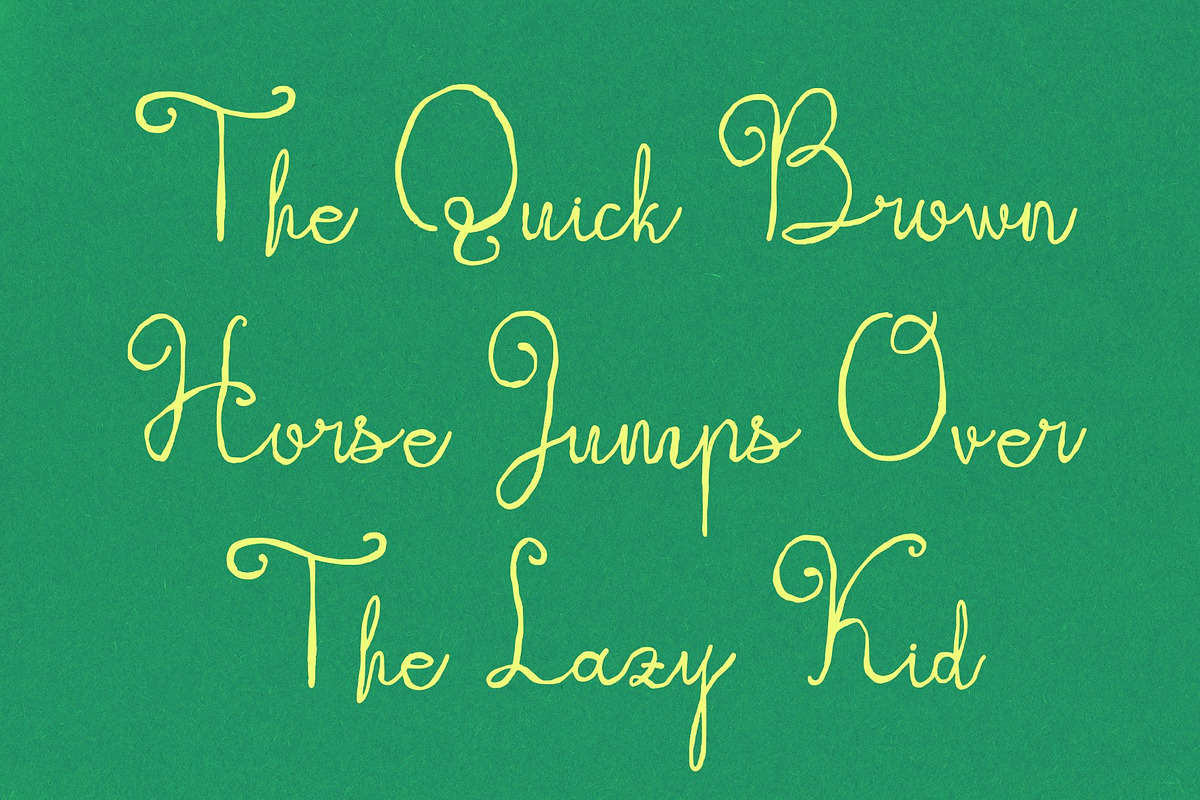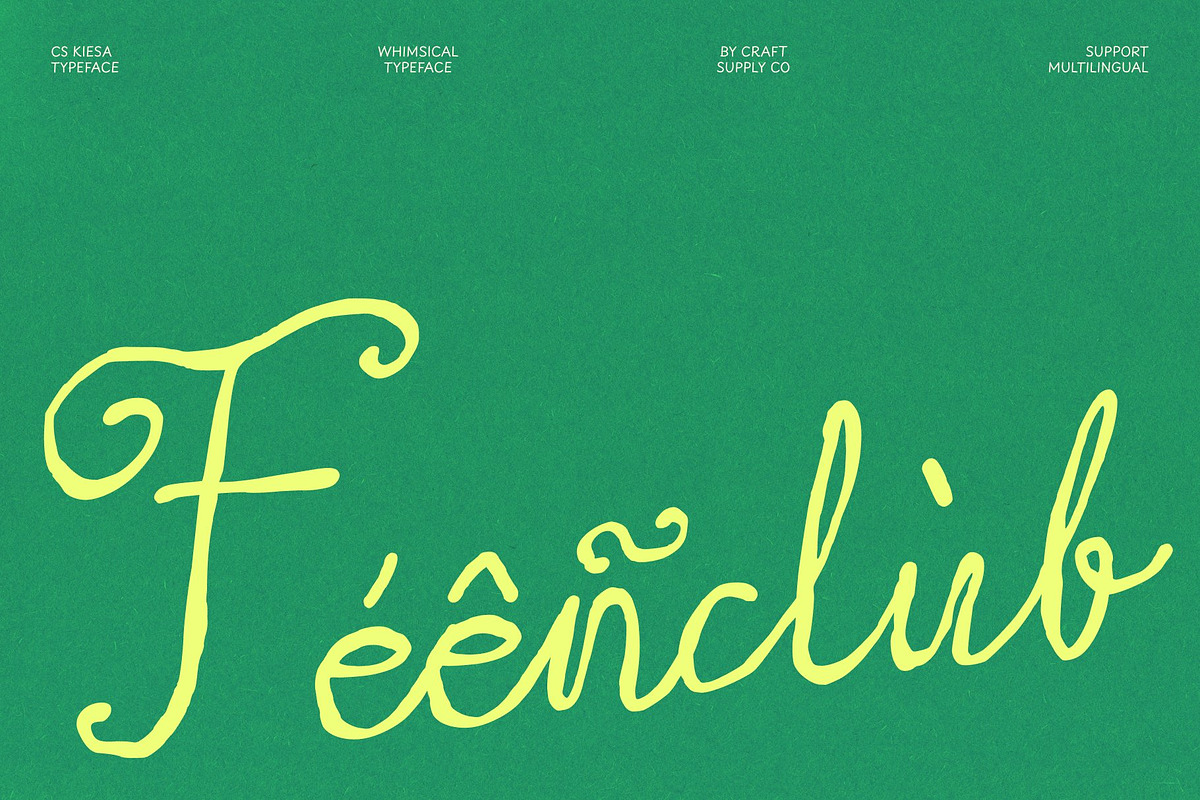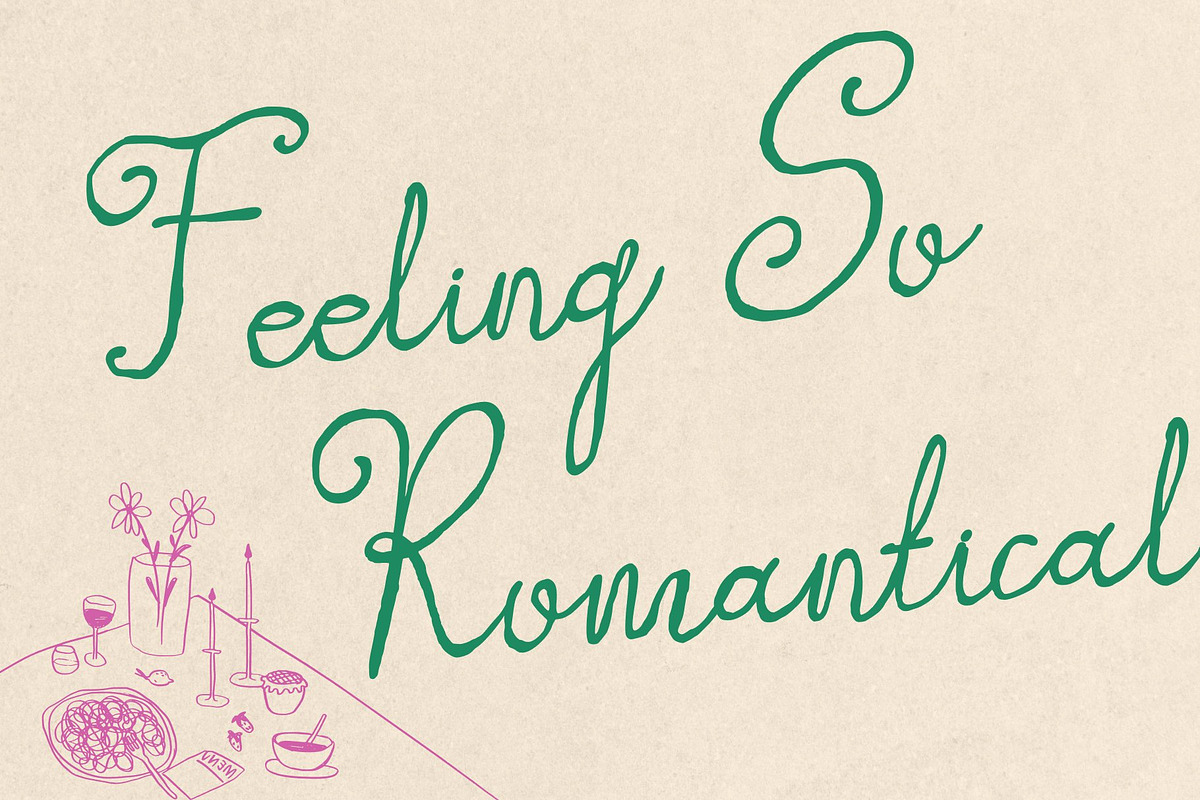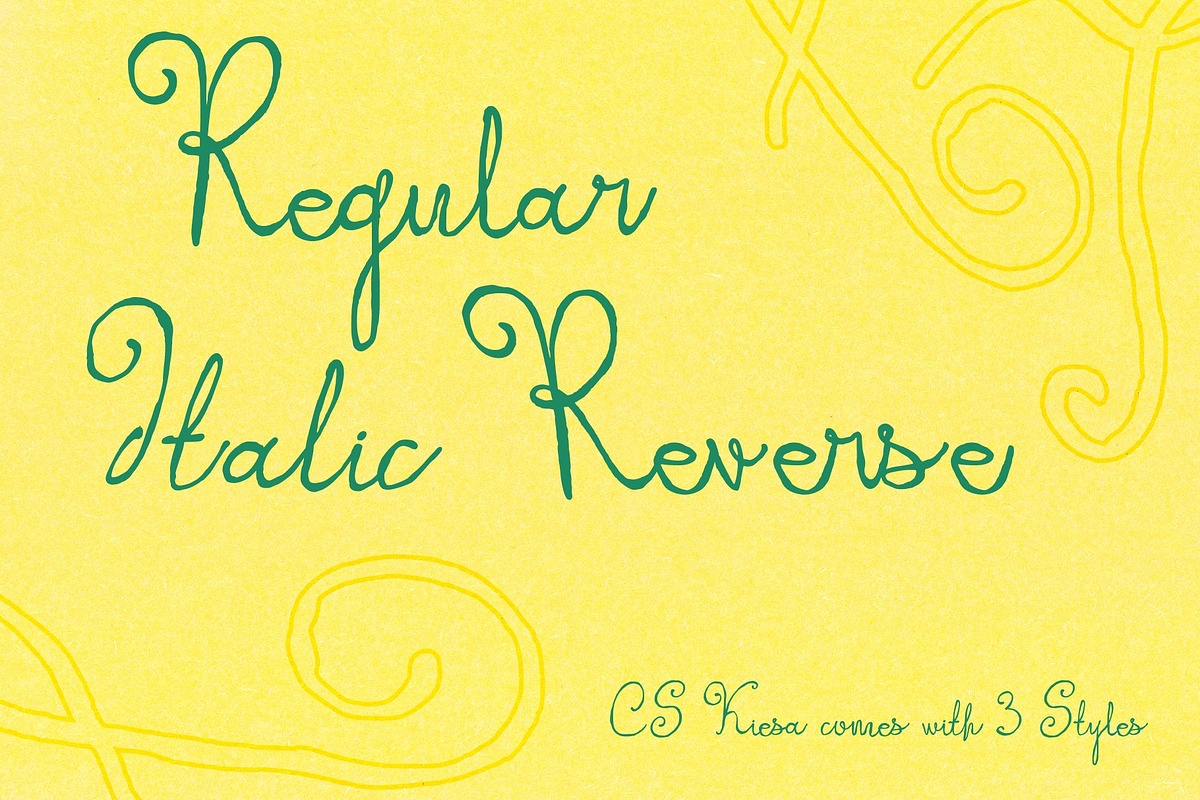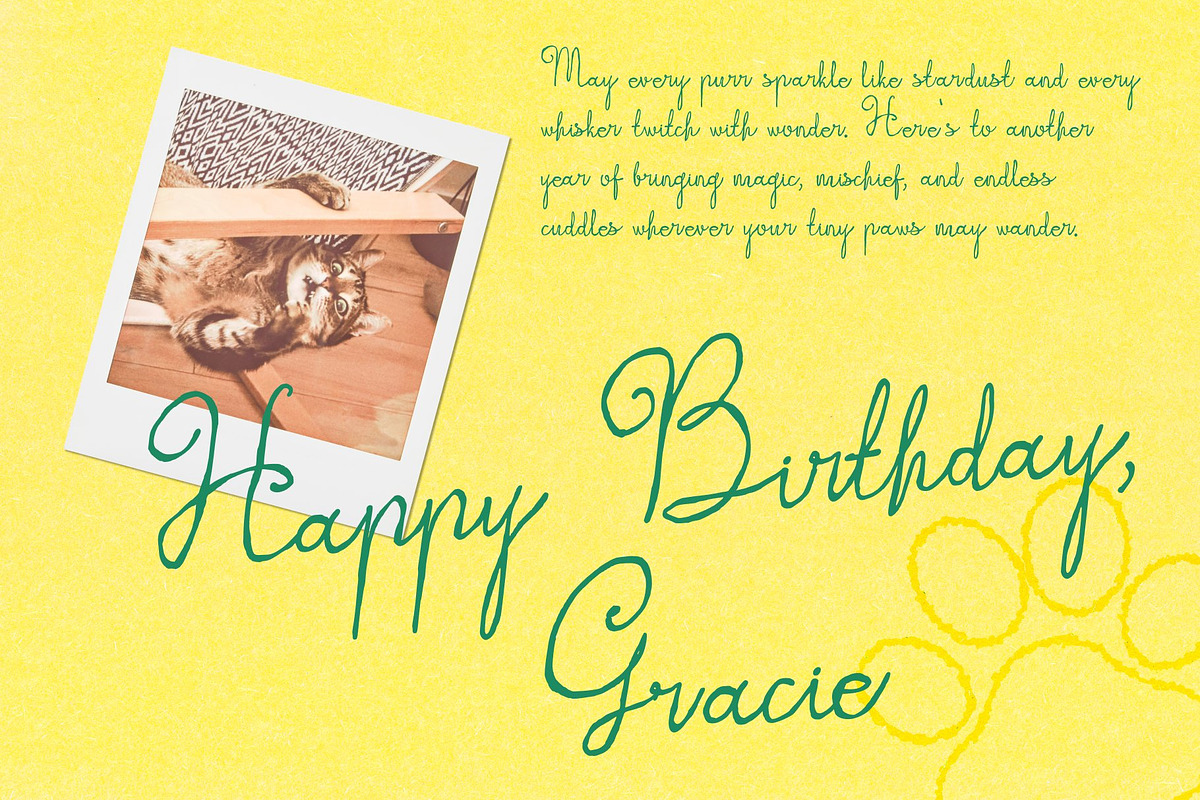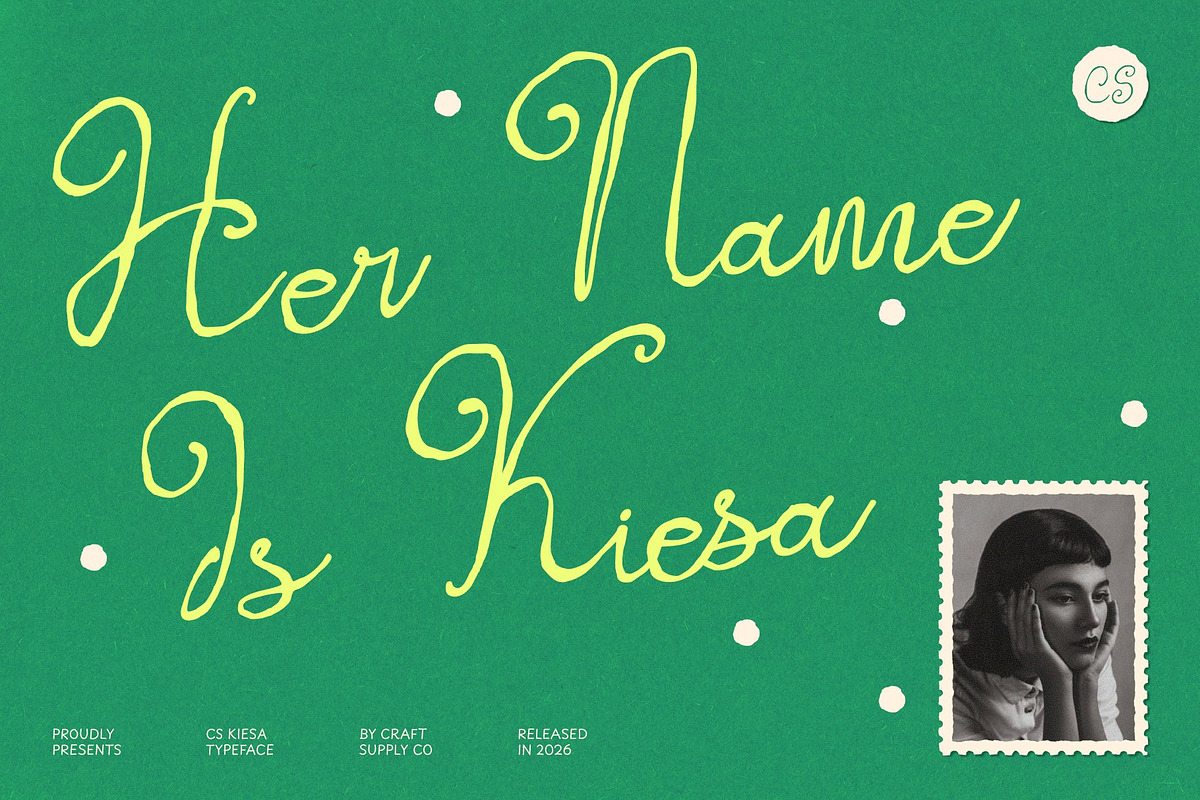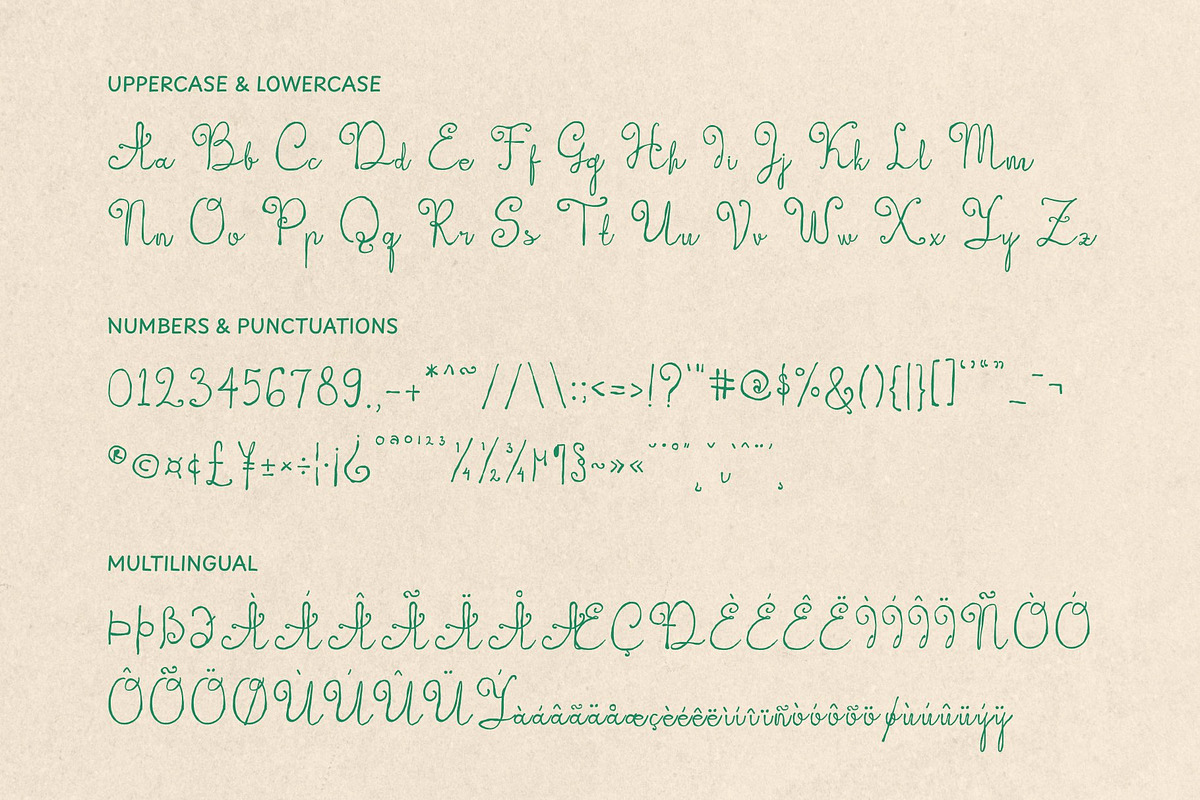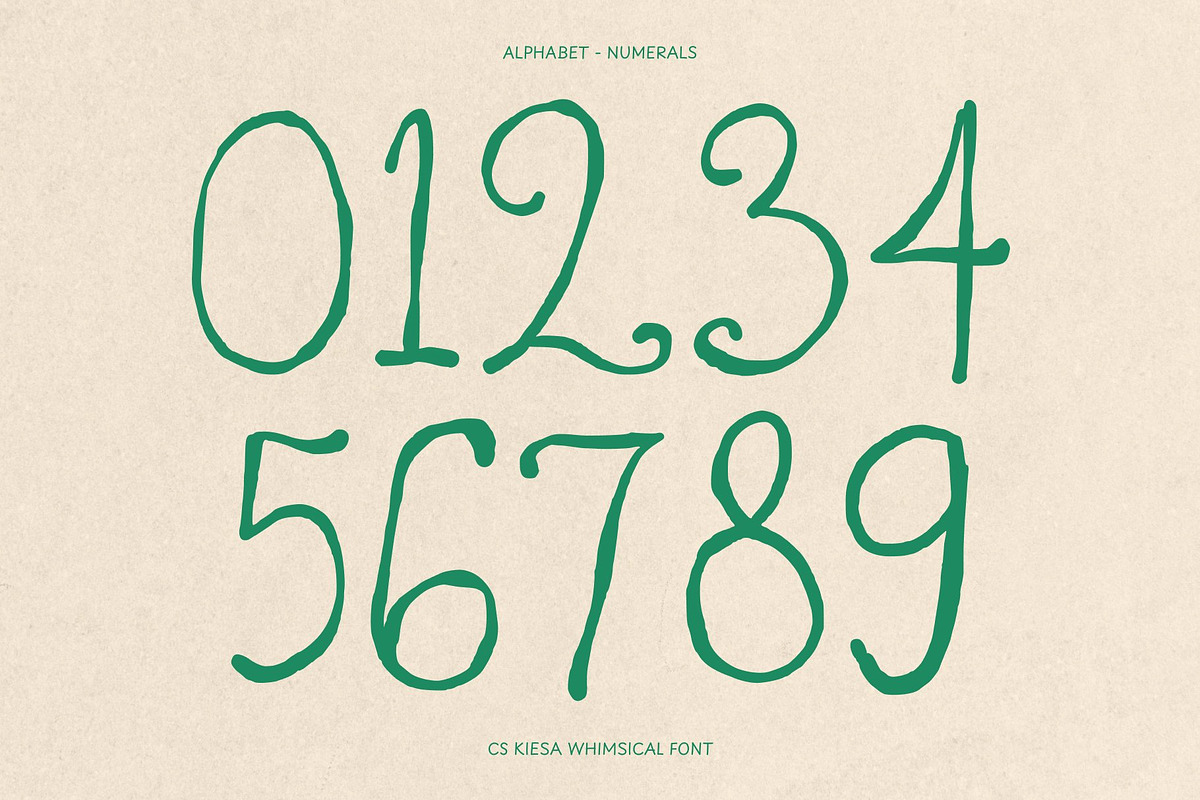
CS Kiesa
CS Kiesa is a dreamy, whimsical script typeface with the soft, uneven charm of a real hand at work. Tall, sweeping capitals unfurl into generous loops and swashes, creating an expressive silhouette that feels personal without becoming overly polished. Its warmth comes from the natural variation in every curve, giving the lettering an inviting, human presence.
The lowercase letters move in a connected, flowing rhythm, like a quiet secret shared on paper. Their gentle, storybook forms bring a naive, fairytale quality to words, balancing tender movement with clear visual character. CS Kiesa feels somewhere between a love letter and a half-remembered dream: romantic, intimate, and softly expressive. It is especially effective when the lettering has room to breathe, allowing its tall capitals, looping gestures, and relaxed connections to become part of the composition rather than simply carry information.
For wedding invitations and stationery, it brings a graceful, personal note to names, dates, and meaningful details. Use it for save the dates, greeting cards, and thank you notes when the goal is warmth over formality. The sweeping capitals can give a headline or signature phrase a memorable entrance, while the connected lowercase keeps supporting lines intimate and fluid.
Beyond paper goods, CS Kiesa works beautifully for branding and logos, packaging and product labels, social media graphics, and quote designs. It suits a bridal suite, a boutique label, or a simple handwritten note whenever the project calls for a soft, enchanting voice.
CS Kiesa Regular
CS Kiesa Italic
CS Kiesa Reverse Italic